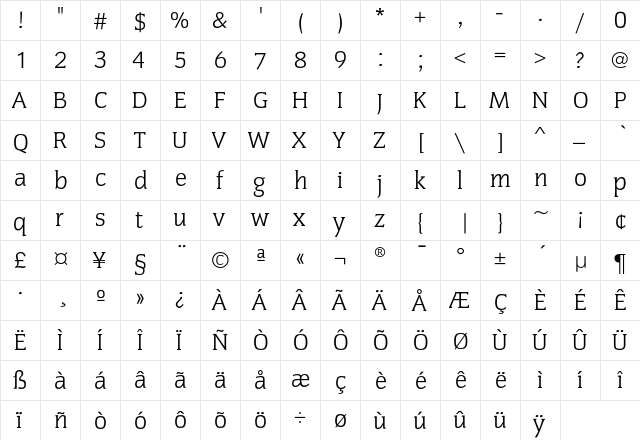
CongressEF Light Font Preview
CongressEF Light
CongressEF Light Font Details
Design Context for CongressEF Typeface
CongressEF offers clean, dependable letterforms without strong stylistic allegiance, making it a practical choice for designers who need flexibility. The delicate stroke weight brings airiness and refinement to layouts.